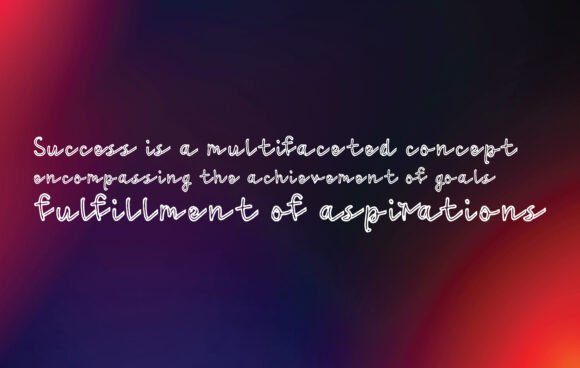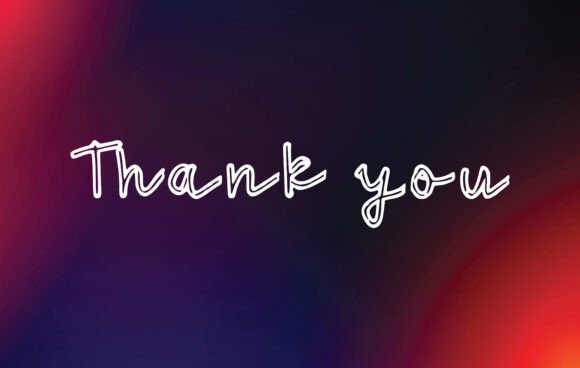
Cougar Font: Elevate Your Creative Projects with Elegance and Sophistication
In the world of typography, a font can make all the difference in bringing your creative visions to life. For designers, crafters, and anyone looking to add a touch of elegance and sophistication to their projects, the Cougar Font is an exceptional choice. This lovely and beautiful handwritten font has the potential to take your creative ideas to the highest level, making it the perfect tool for creating eye-catching logos, branding, and quotes.
What Makes Cougar Font Stand Out?
Cougar Font is not just any ordinary font. Its unique, flowing script and delicate strokes make it a standout in the world of typography. The font’s design is inspired by the grace and agility of a cougar, reflecting a sense of power, elegance, and refinement. Whether you’re working on a logo, a branding project, or simply looking to add a personal touch to your quotes, Cougar Font brings a level of sophistication that’s hard to match.
One of the key benefits of Cougar Font is its versatility. This font can be used across a wide range of projects, from digital applications like website headers and social media graphics to print materials such as brochures, posters, and business cards. Its clear and readable design ensures that your message is conveyed effectively, regardless of the medium.
For businesses and entrepreneurs looking to create a strong brand identity, Cougar Font offers a unique opportunity to stand out from the competition. Its elegant and memorable appearance makes it ideal for logos, where first impressions count. By incorporating Cougar Font into your branding, you can convey a sense of luxury, quality, and professionalism that resonates with your target audience.
Enhance Your Quotes with Style
For writers, poets, and anyone who loves to share inspiring quotes, Cougar Font adds an extra layer of emotional impact. The font’s beautiful, flowing script brings a sense of warmth and personality to your words, making them more engaging and shareable. Whether you’re designing graphics for social media, a blog, or a personal project, Cougar Font helps your quotes stand out and touch the hearts of your readers.
Why Choose Cougar Font?
- Elegant and Sophisticated: Cougar Font’s unique design adds a touch of elegance and sophistication to any project.
- Highly Versatile: Suitable for a wide range of applications, from digital projects to print materials.
- Easy to Read: Despite its elegant appearance, Cougar Font remains clear and easy to read.
- Perfect for Branding: Helps create a strong and memorable brand identity.
- Emotional Impact: Adds warmth and personality to quotes and textual content.
- Experiment with Sizes: Cougar Font looks great in various sizes, from large headings to smaller body text.
- Play with Colors: The font’s elegant design works well with a range of colors, from simple black and white to more vibrant hues.
- Combine with Images: Pair Cougar Font with high-quality images or illustrations to create visually appealing designs.
Cougar Font is more than just a beautiful handwritten font; it’s a tool that can elevate your creative projects to new heights. Its elegance, versatility, and emotional impact make it an excellent choice for designers, crafters, and anyone looking to add a touch of sophistication to their work. Whether you’re creating logos, branding materials, or quotes, Cougar Font is sure to leave a lasting impression.